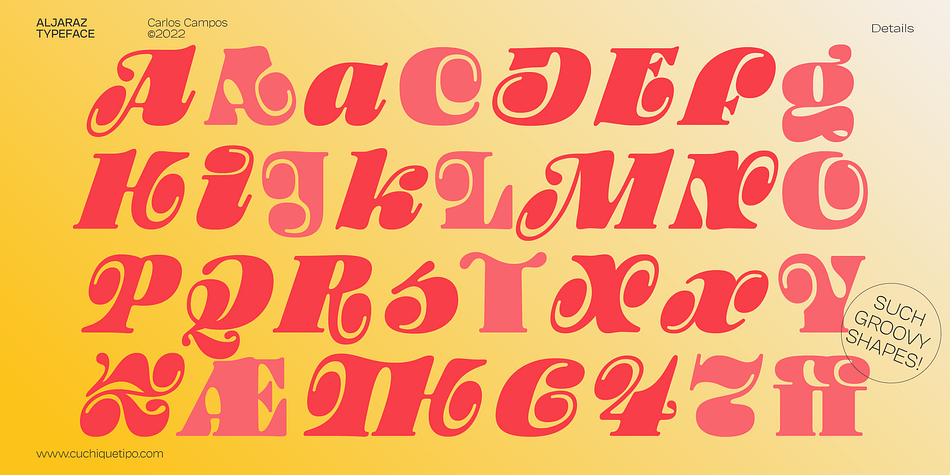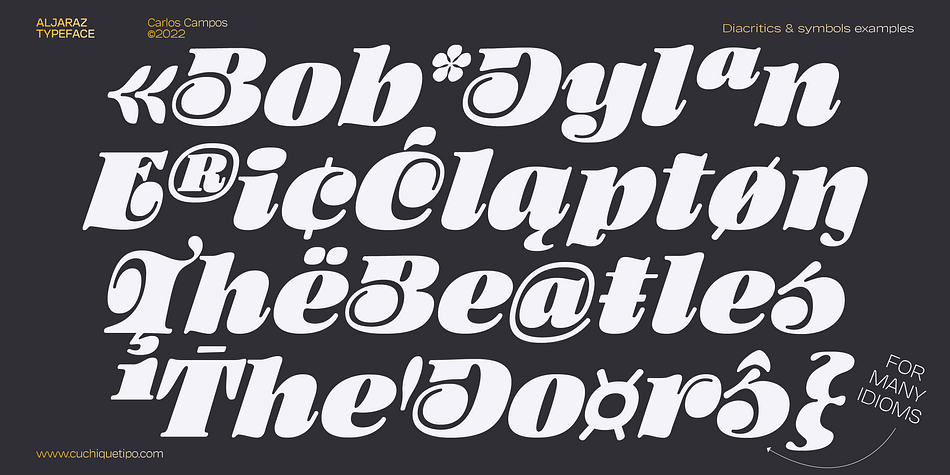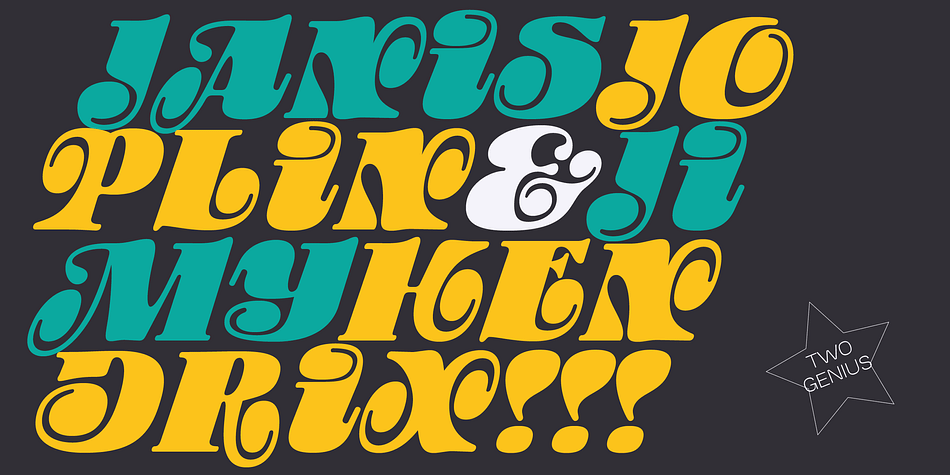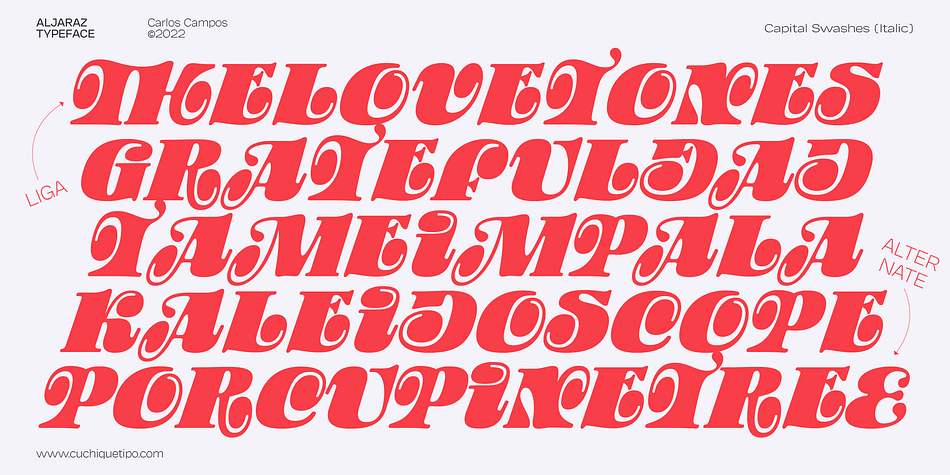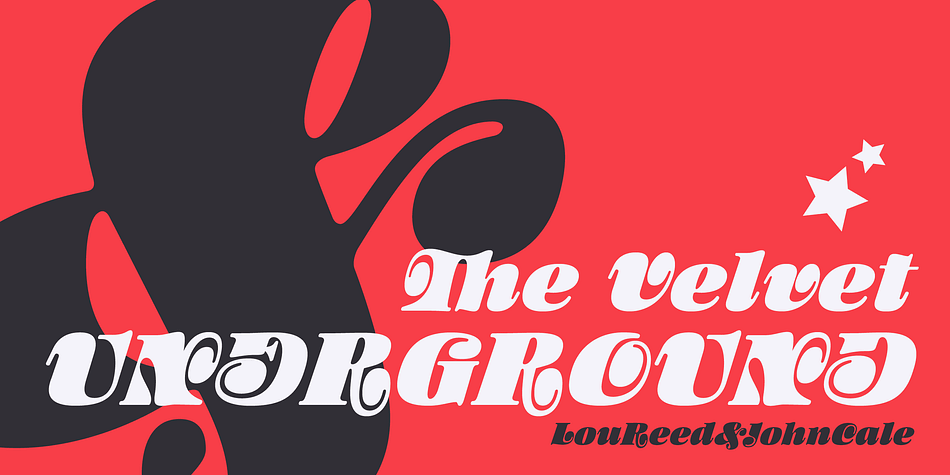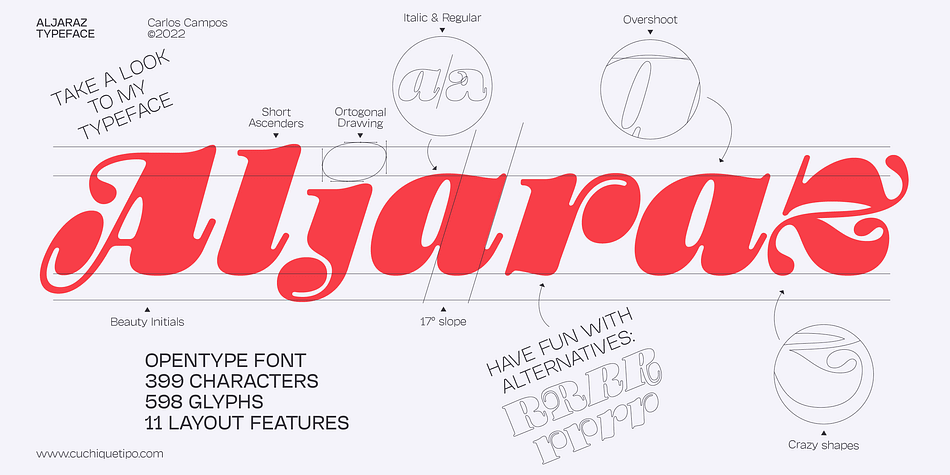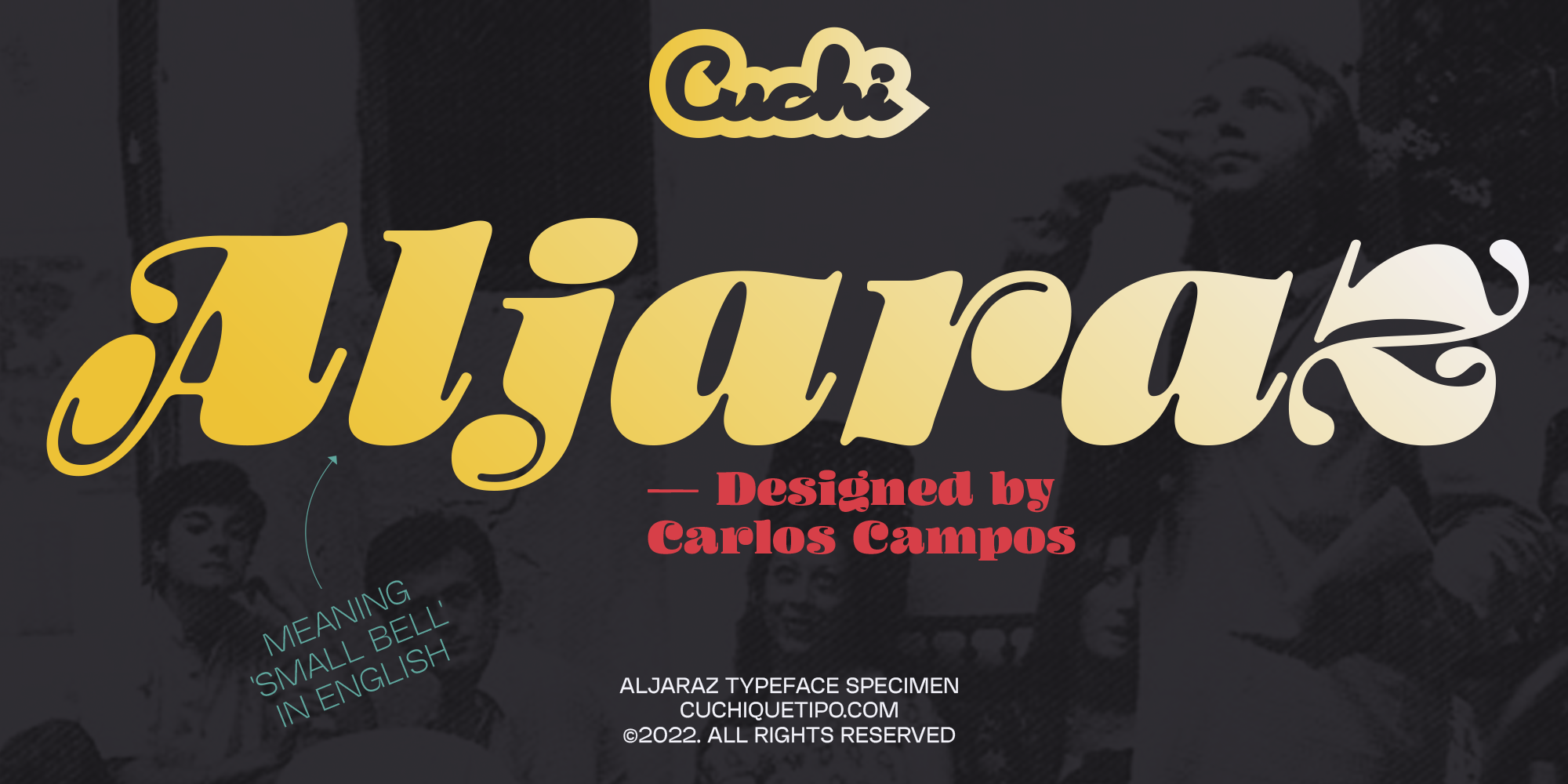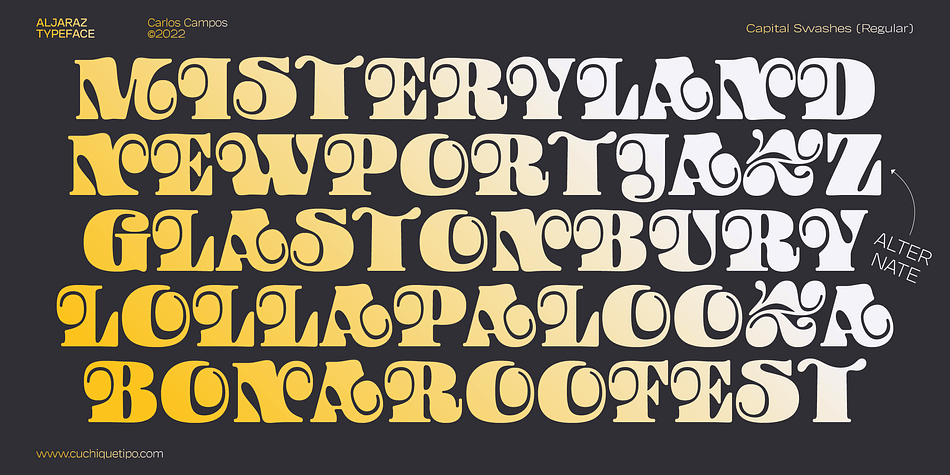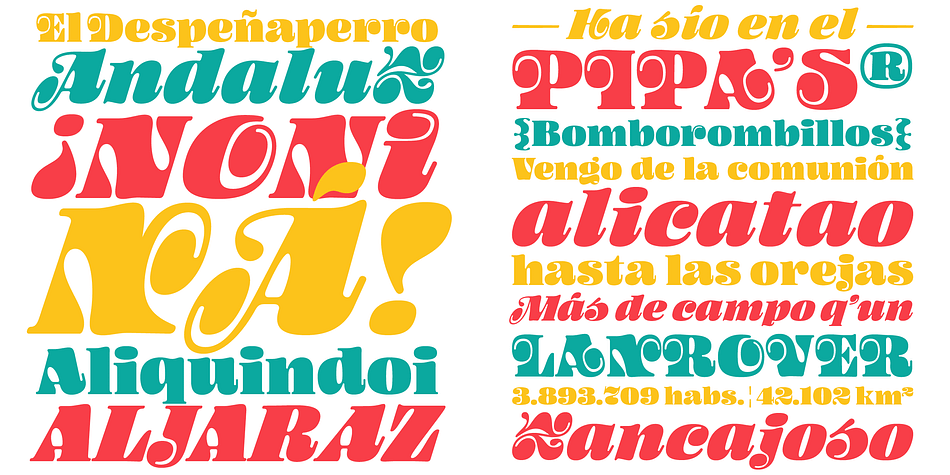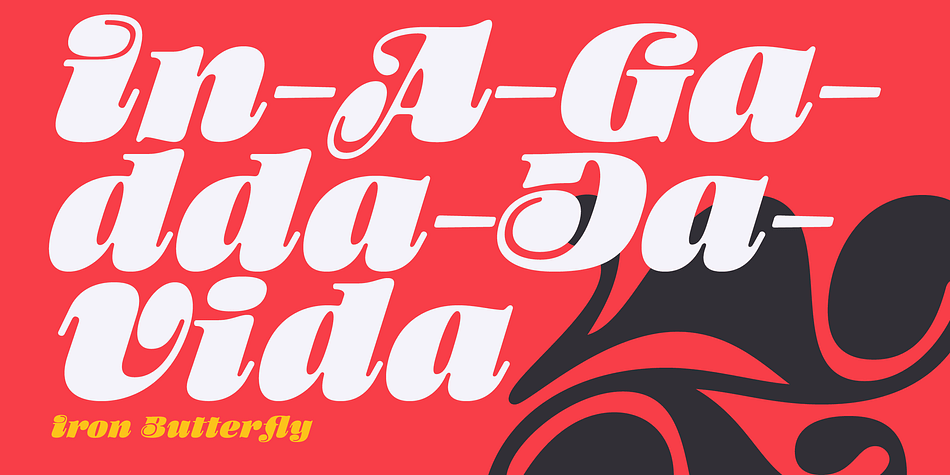
Aljaraz
Designed by Carlos Campos, Aljaraz is a display serif and retro font family. This typeface has two styles and was published by Cuchi qué Tipo.
Aljaraz (meaning “small bell” in english) is a curvy typeface inspired on the “Fat face” letters with an extremely bold design from the early 19th century, but with an insolent touch of brave and psychedelic distortions.
Aljaraz has a regular and italic variable, and in both styles the capital letters have a swash alternative where the naughty touch reaches its maximum expression. It is ideal to recall the lysergic era of the 60s, write funny words, or simply to express small texts in a display way that powerfully attracts attention.
Let Aljaraz inspire you groovy kind of love!